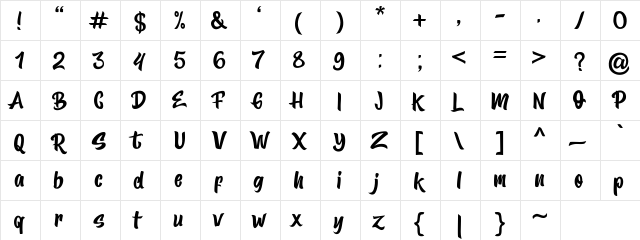
Buchin Free Personal Use Only Regular
Design Context for Buchin Free Personal Use Only Typeface
Buchin Free Personal Use Only is a composed and adaptable typeface that performs quietly and consistently across a wide range of design contexts.